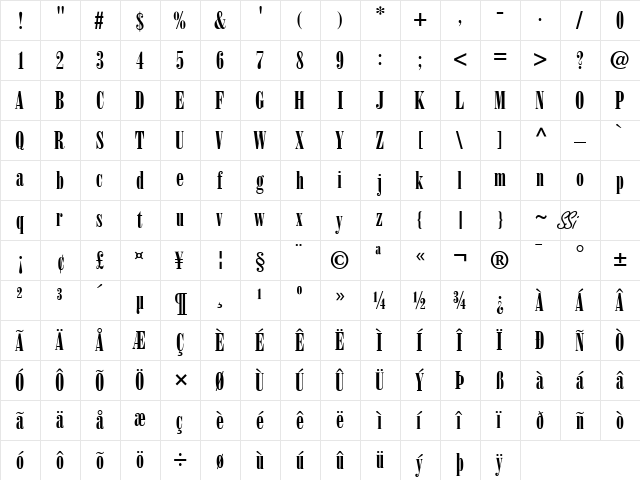
Bodoni Poster Condensed SSi Poster Condensed
Design Context for Bodoni Poster Condensed SSi Typeface
Bodoni Poster Condensed SSi is a composed and adaptable typeface that performs quietly and consistently across a wide range of design contexts. The condensed width makes it efficient for tight spaces without sacrificing legibility.